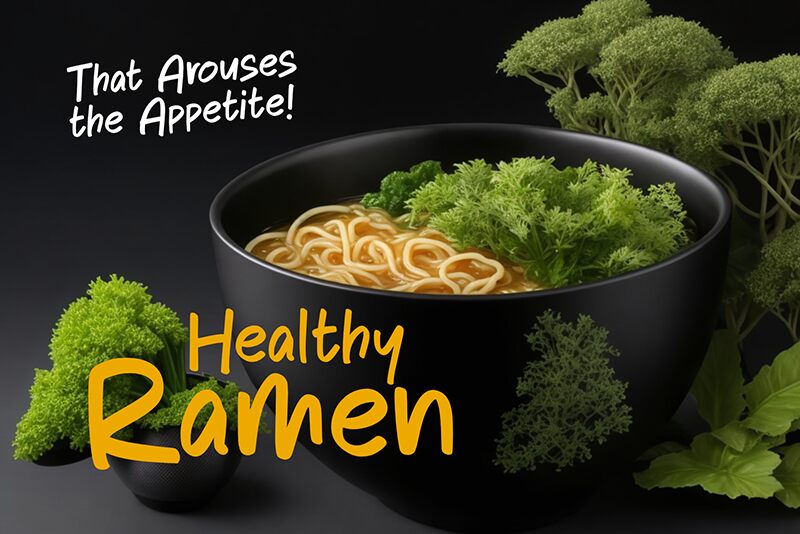
Newyear Playtime font by DumadiStyle is a free handwritten font featuring a charming and cheerful style. The whimsical design of the letters gives them a casual yet modern aesthetic that's incredibly approachable and attractive to the eye.